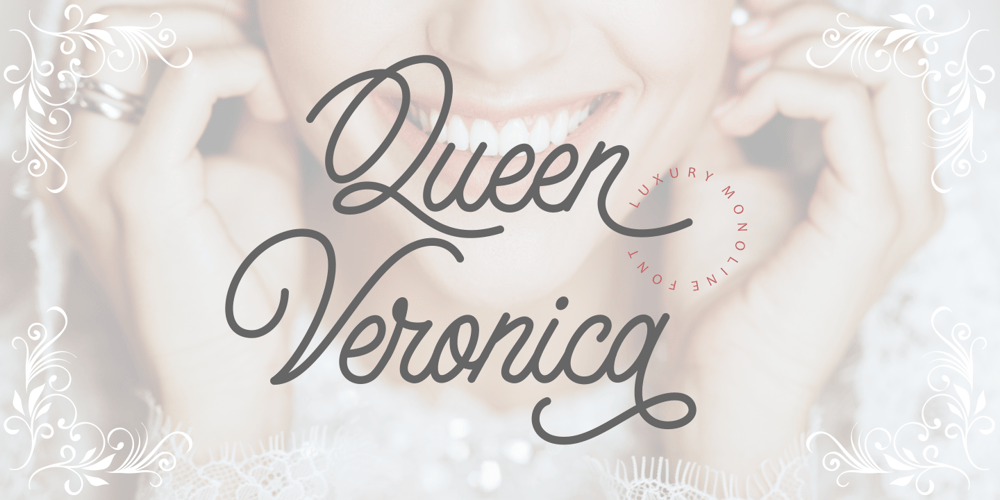
Queen Veronica Font Family was designed by Putra Novembria Candra Kusuma and published by Putracetol. Queen Veronica contains 1 styles and family package options. Queen Veronica is a elegant, luxury and stylish monoline script font. A handwritten and script style make this font looks natural and perfect for any projects that need handwriting tasteQueen Veronica perfect for signature,quote, branding, wedding invite and card, elegant logo, poster, packaging, stationery, website, and many more. Come with open type feature with a lot of alternates, it’s help you to make great lettering.